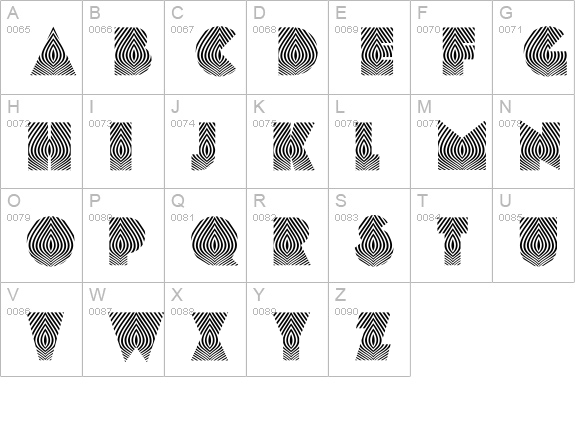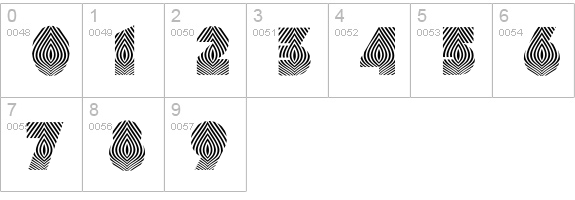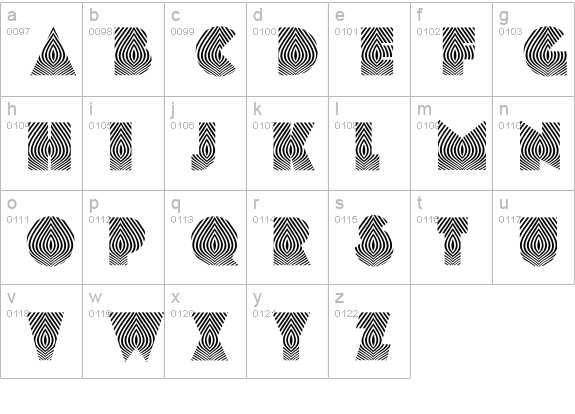
Onion Font Details
The Onion font is a unique and stylish typeface that adds a touch of elegance to any design project. With its sleek lines and modern aesthetic, this font is perfect for creating eye-catching headlines, logos, and more. The Onion font is available for free download at FontsMarket.com, making it accessible to all designers looking to enhance their creations with a touch of sophistication. Stand out from the crowd with the Onion font and elevate your designs to the next level.